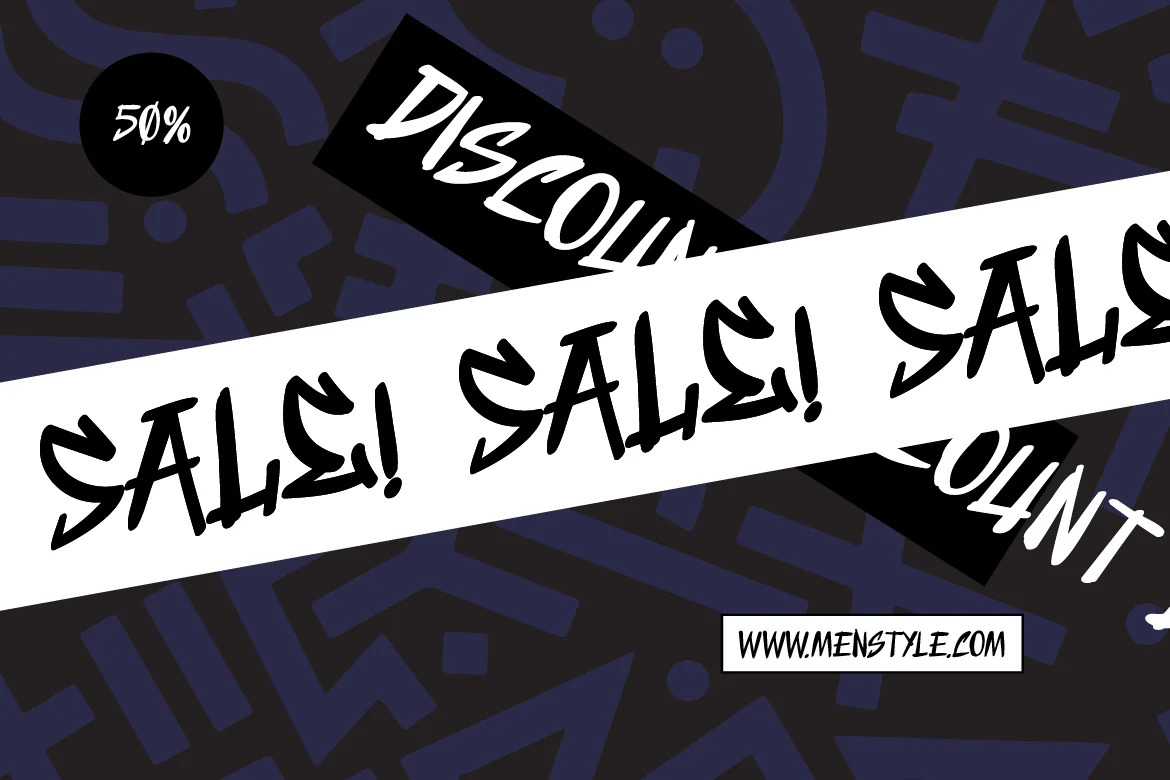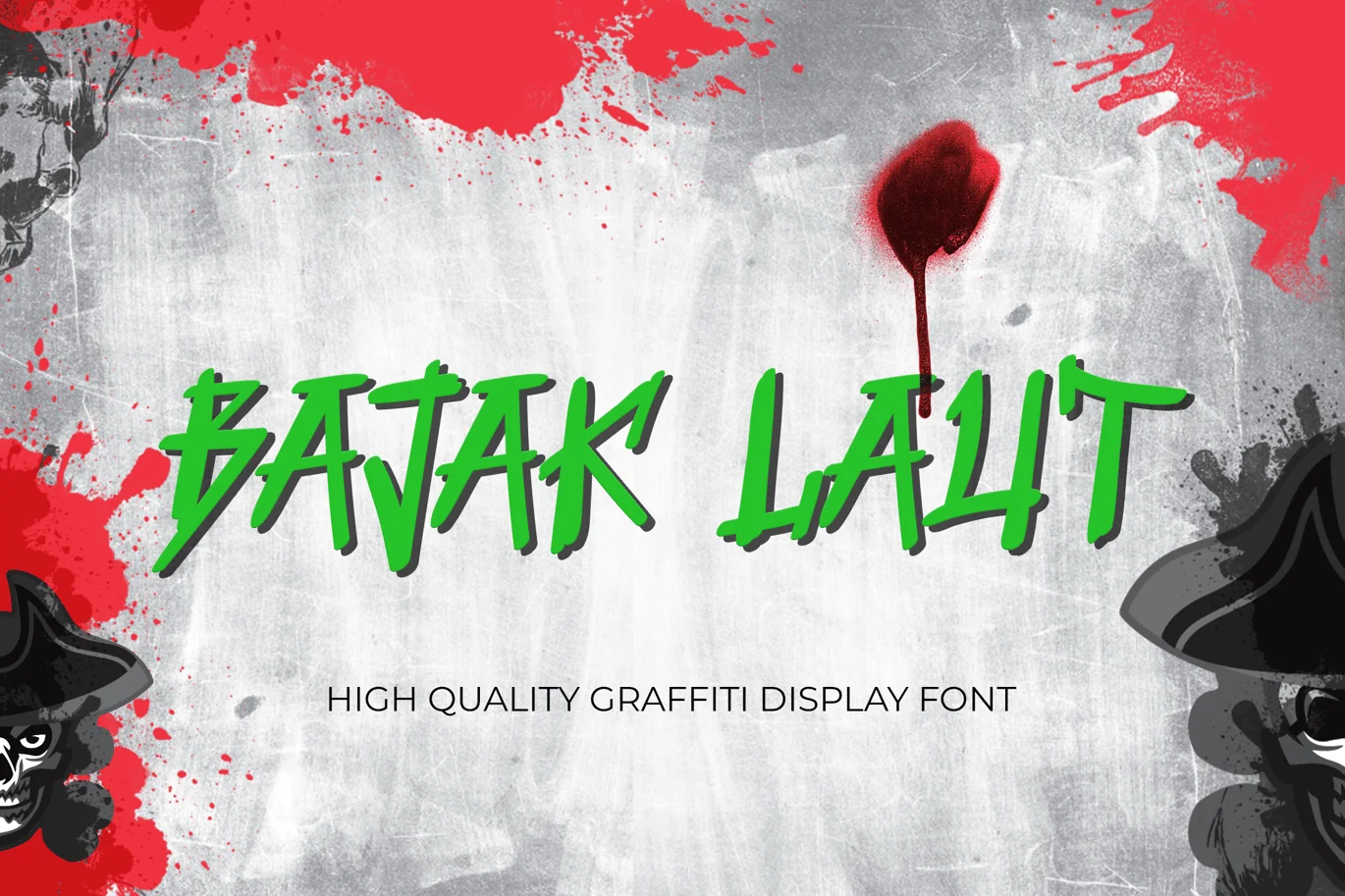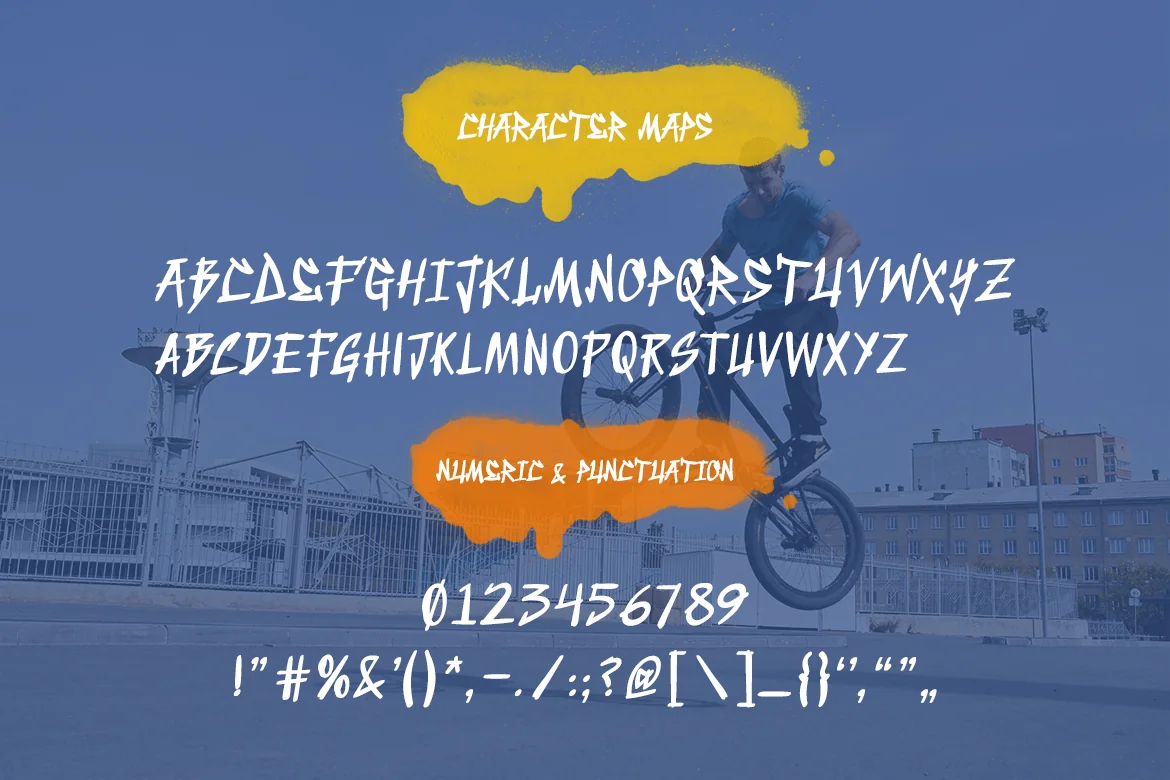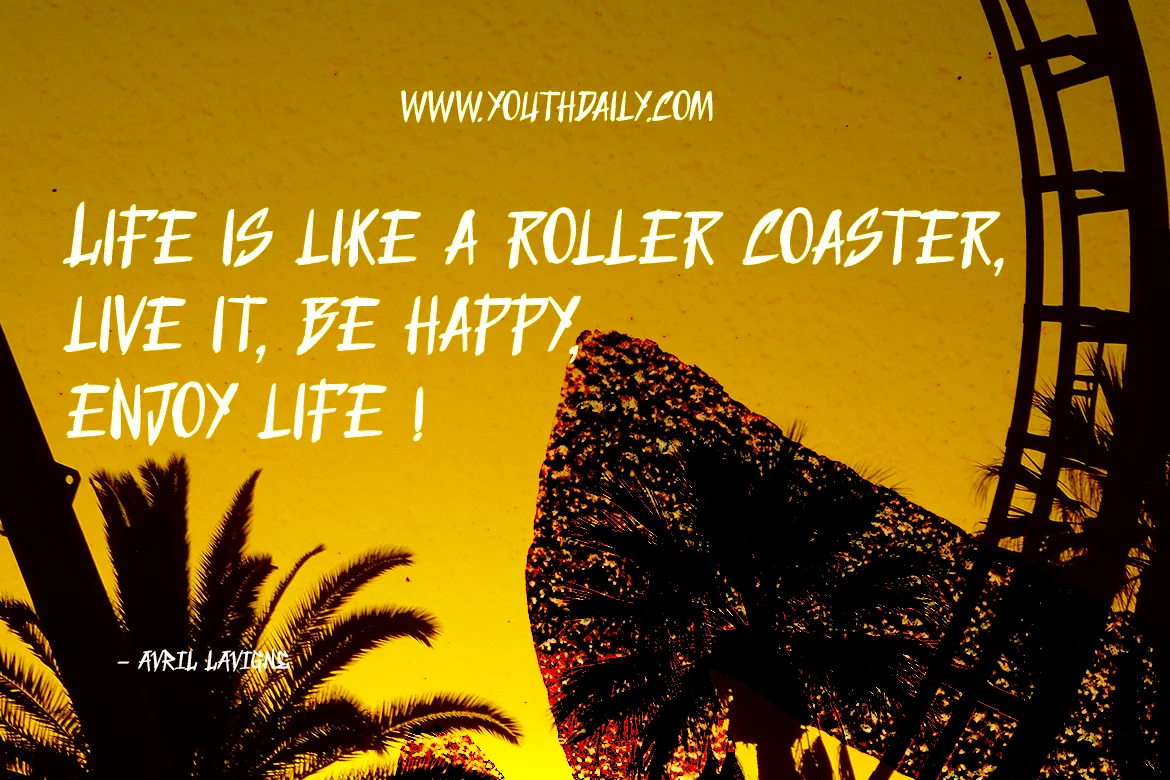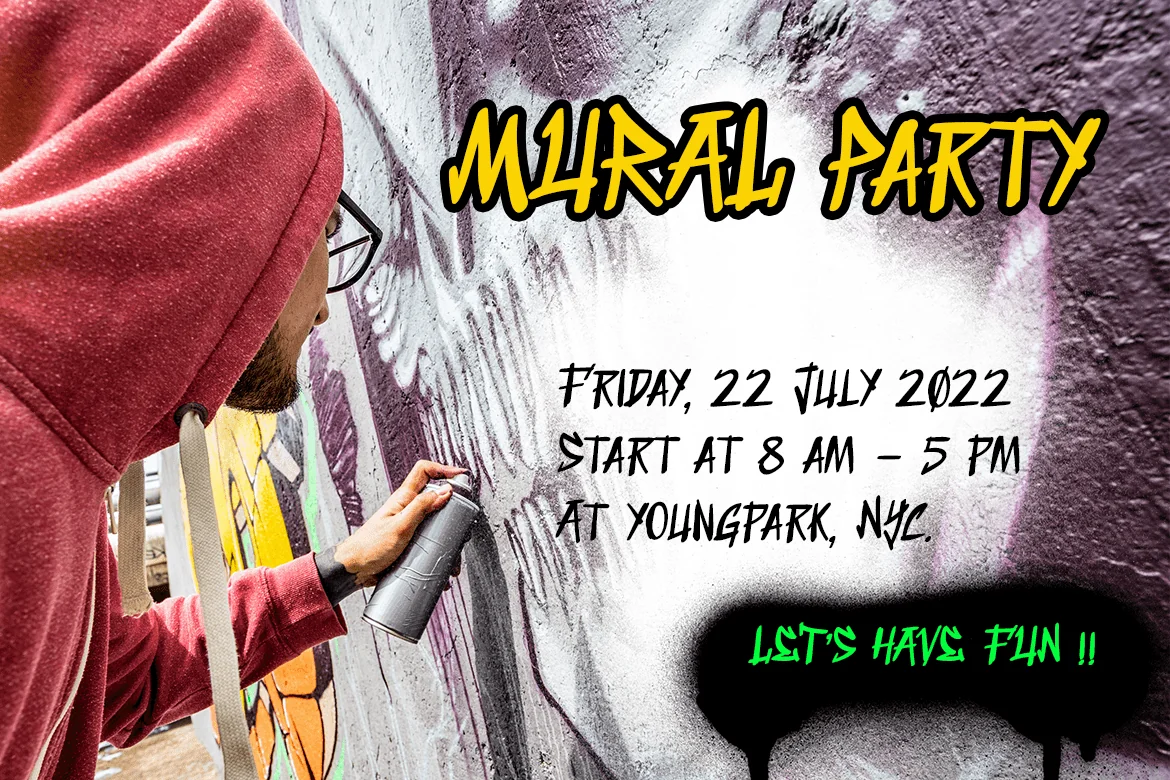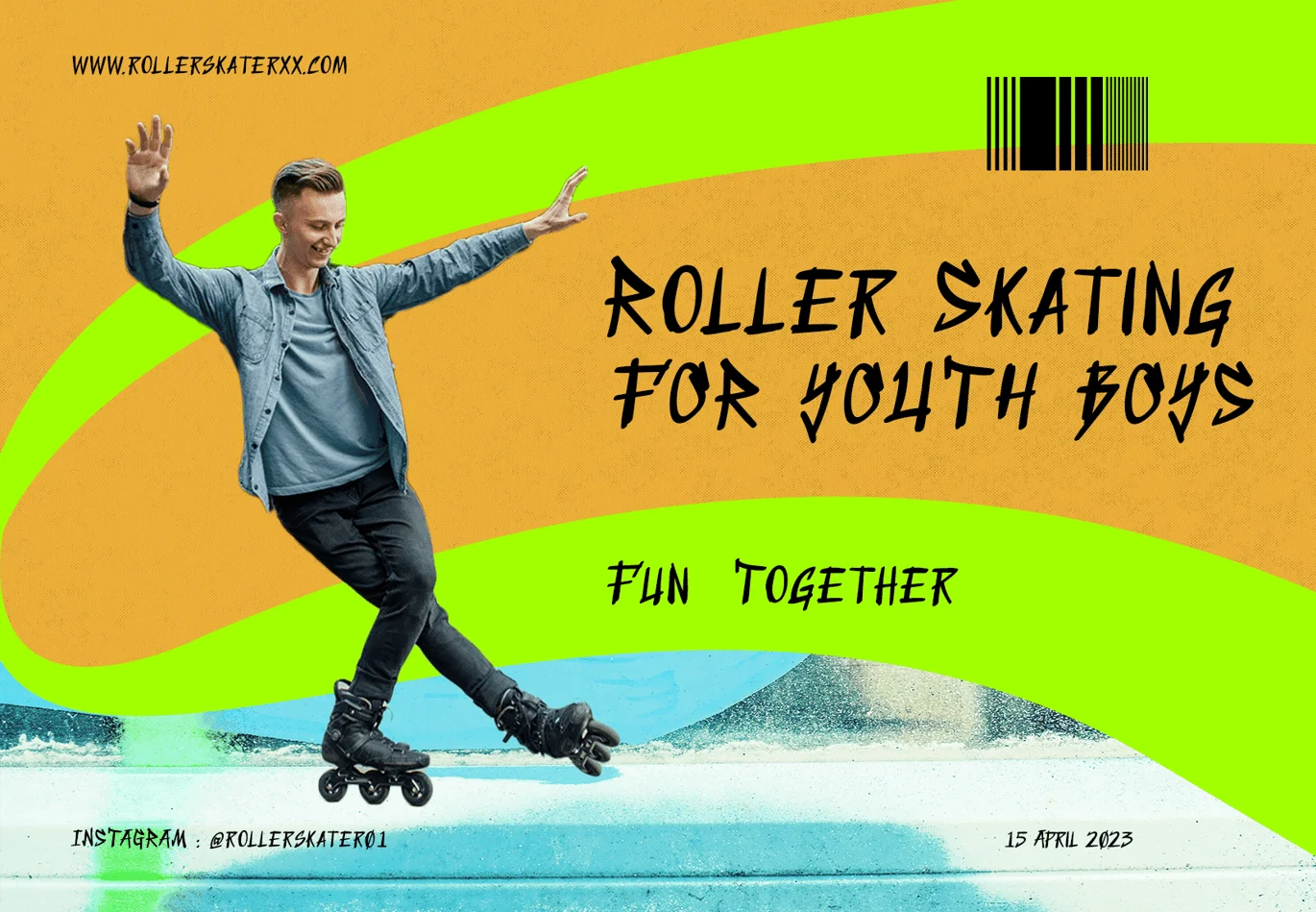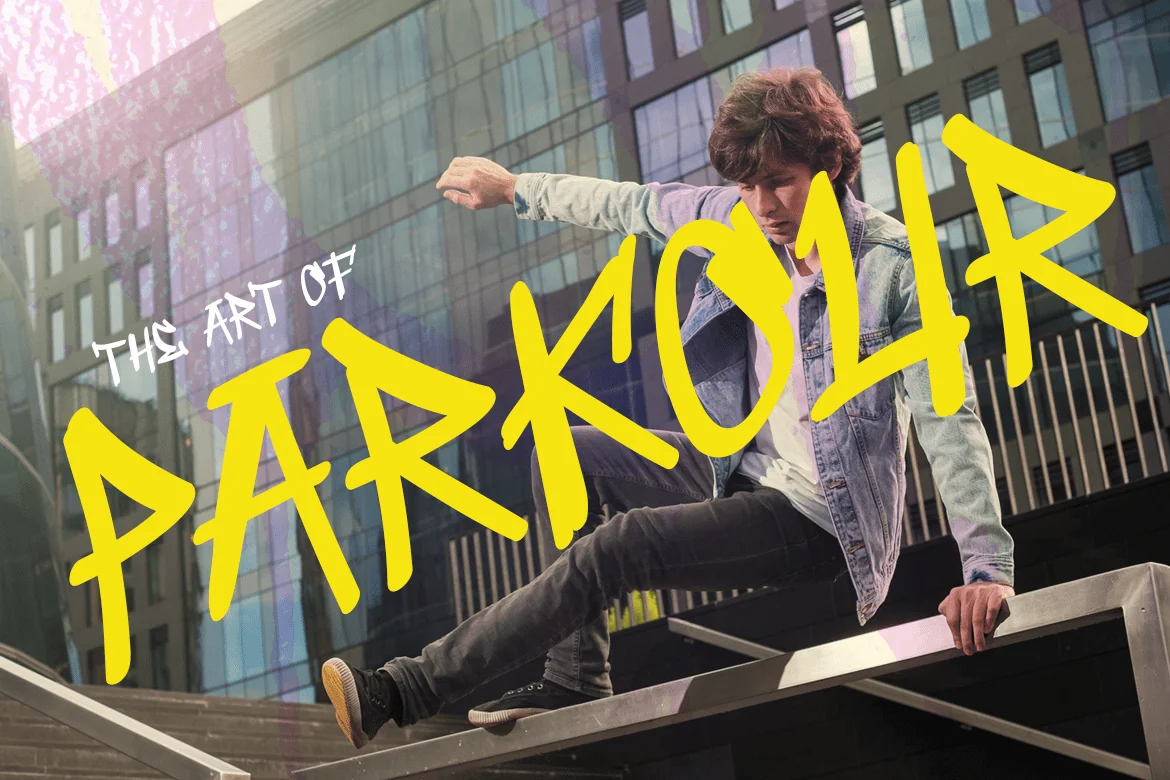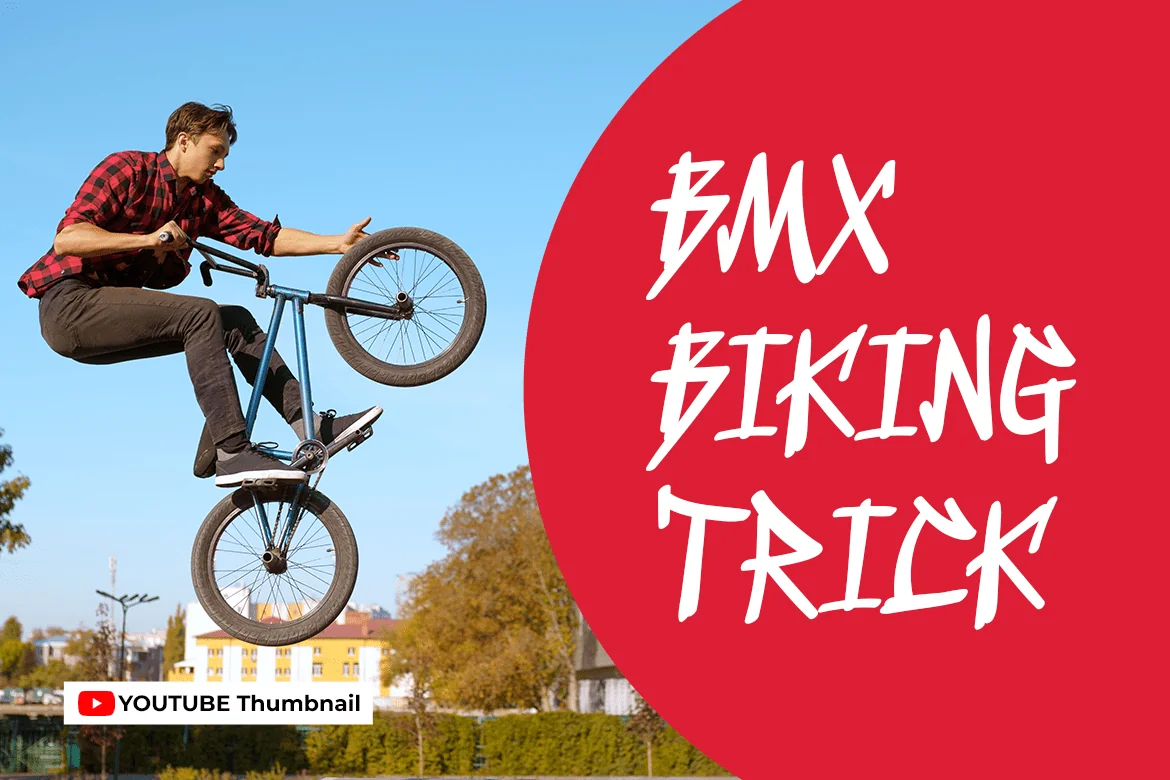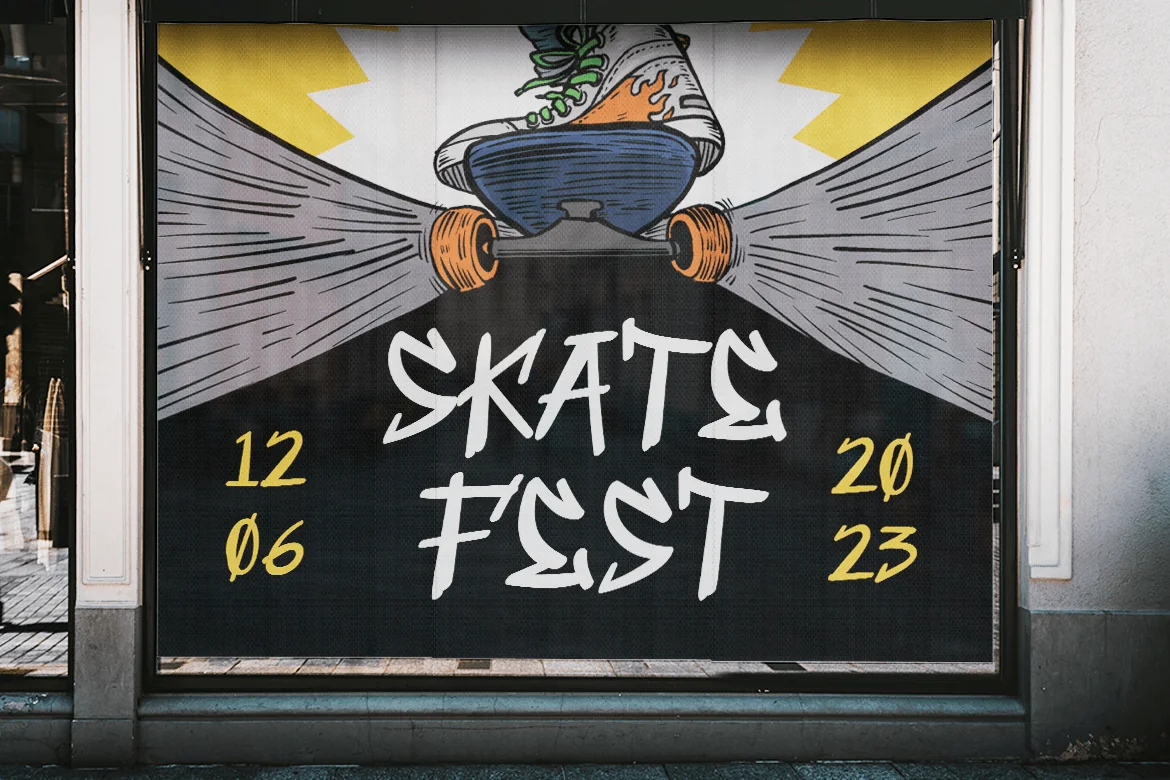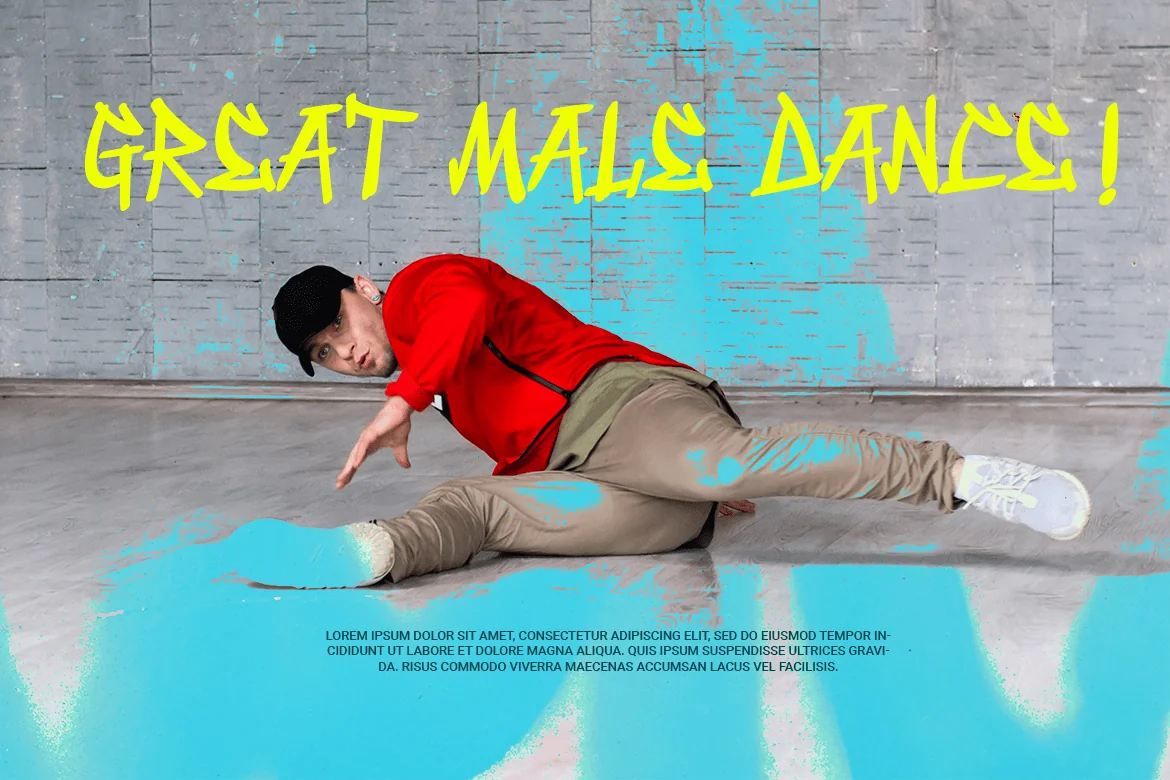
Bajak Laut – Graffiti Display Font
Strong line and no nonsense attitude, that’s what Bajak Laut stands for.
being a pirate and conquer the seven seas like it’s a flip of a coin. Easy peasy.
Suit perfectly for young age segmented magazine, poster, movie title, music poster, youtube covers, youtube thumbnails, social media page covers and so on…